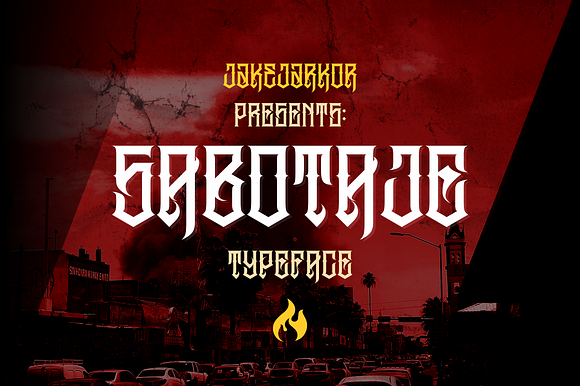
SABOTAJE Font
This rebellious typeface is perfect for underground branding, punk rock merchandise, graffiti designs, street art projects, protest graphics, alternative music labels, counter-culture publications, edgy fashion brands, and subversive design applications.
What makes this font exciting is its destructive aesthetic combined with anarchist authenticity, offering designers a disruptive typeface that captures the raw energy of rebellion while delivering uncompromising attitude and anti-establishment sophistication.
The SABOTAJE font family includes regular, bold, stencil, destroyed, and chaos variations, providing complete subversive design solutions for creating powerful anti-conformist visual identities.
Whether you're developing underground movement campaigns or crafting rebellious brand experiences, SABOTAJE Font Free Download brings exceptional disruptive energy and anarchist authenticity to every application. This defiant typeface combines punk typography traditions with contemporary subversive design, creating letterforms that challenge authority and inspire resistance. The font's destructive construction and rebellion-ready details make it perfect for brands seeking immediate counter-culture recognition.
SABOTAJE Font features carefully engineered destructive styling with authentic anarchist character that conveys genuine anti-establishment spirit. Each character has been crafted with intentional damage and chaotic elements that enhance the subversive aesthetic. The font's rebellious qualities make it particularly effective for alternative music venues and counter-culture applications.
Professional designers choose SABOTAJE Font for projects requiring authentic underground credibility and anarchist atmosphere. Its punk heritage makes it exceptionally well-suited for independent record labels, alternative venues, and anti-establishment lifestyle brands. The font's versatile destructive variations allow designers to control the chaos intensity, from subtle rebellion elegance to complete anarchist destruction.
The complete SABOTAJE Font package offers extensive anarchist ornaments and destructive decorative elements that enhance the subversive aesthetic. Advanced chaos features allow designers to create complex rebellious effects with multiple anti-establishment options. This comprehensive anarchist toolkit ensures authentic results whether you're creating protest materials, underground publications, or transformative branded experiences that challenge conventional authority.